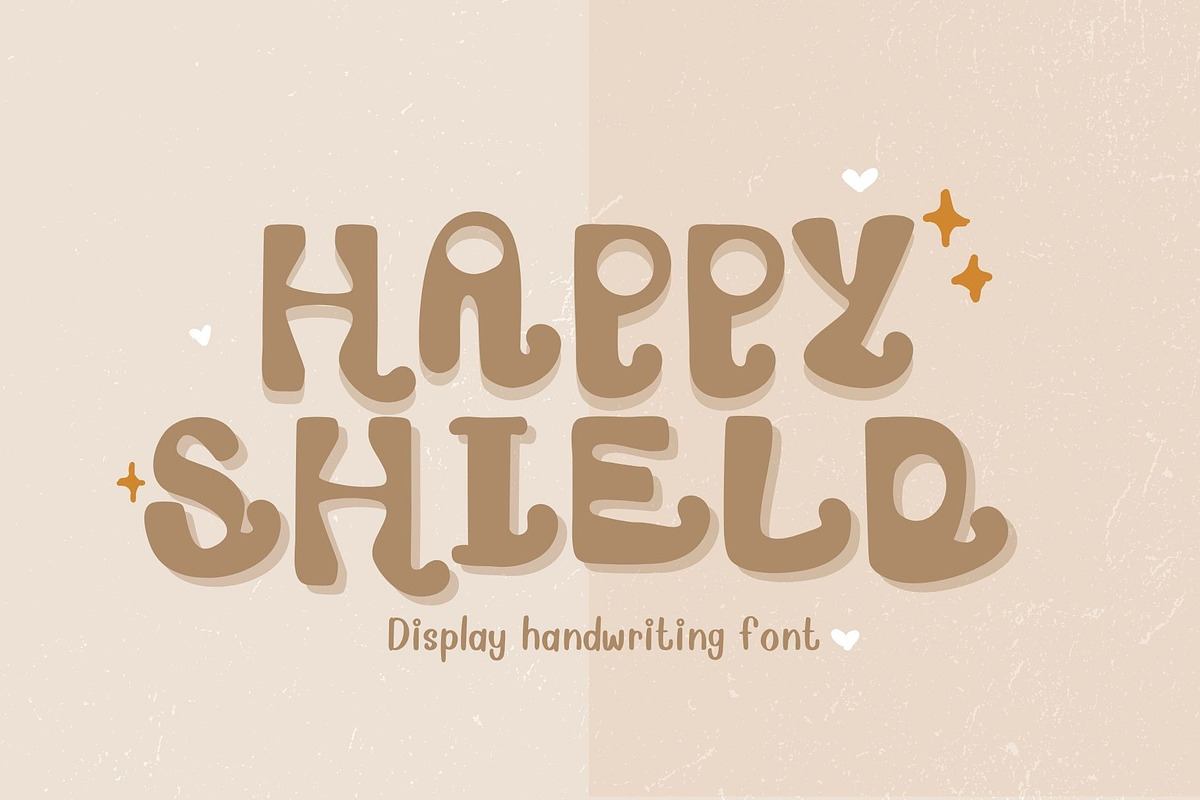
Happy Shield Font Free Download is a playful and bold typeface that radiates positivity and strength with a fun twist. With its chunky letterforms, rounded edges, and cheerful style, this font is perfect for kids’ designs, educational materials, product packaging, cartoons, and branding that needs a lighthearted, confident tone.
Designed to be both friendly and impactful, Happy Shield Font Free Download offers excellent readability and a strong visual presence. It’s ideal for making titles pop while maintaining an approachable vibe, whether you're designing posters, logos, or digital graphics.